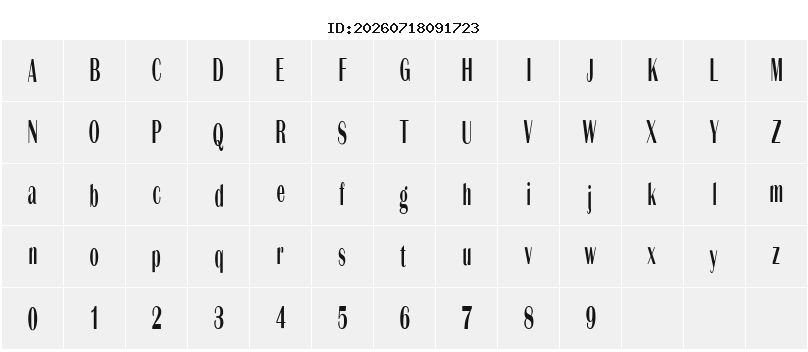
Cg Preview
• Font Name: Cg
• Font ID: TransType 2 PC;CgMetronomeGothic;001.000;05/28/05 07:56:54
• Full Font Name: CgMetronomeGothic
• PostScript Name: CgMetronomeGothic
About Cg.ttf
Cg.ttf is a modern, elegant sans-serif font designed for ultimate readability and visual harmony. Perfect for branding, headlines, web design, and print materials.